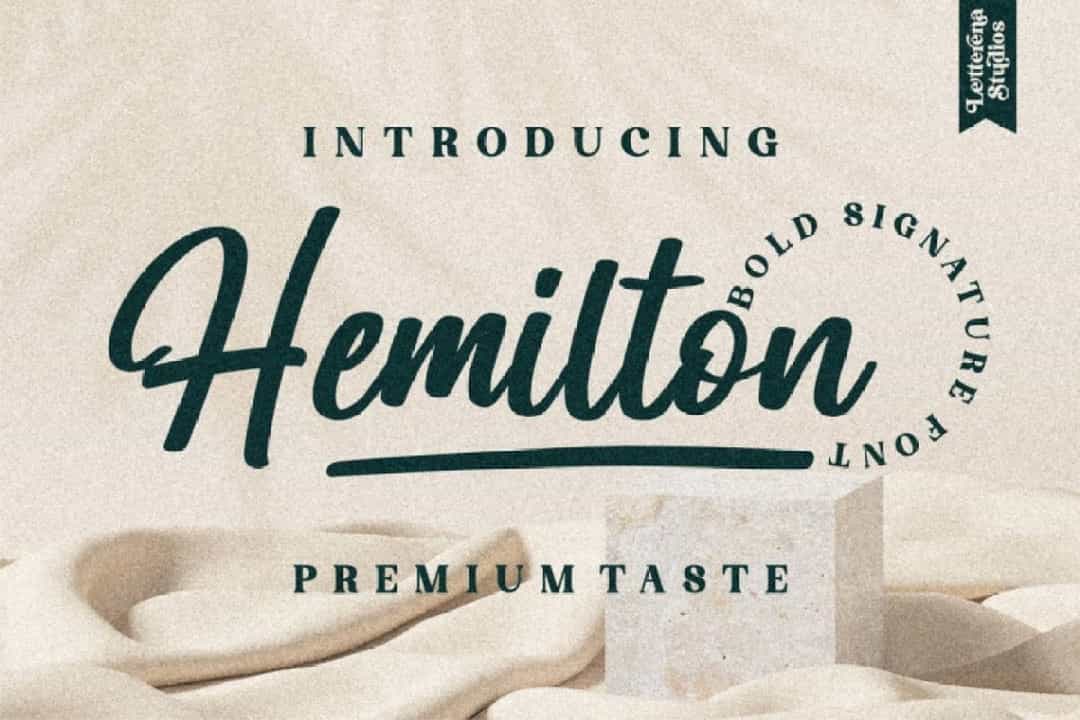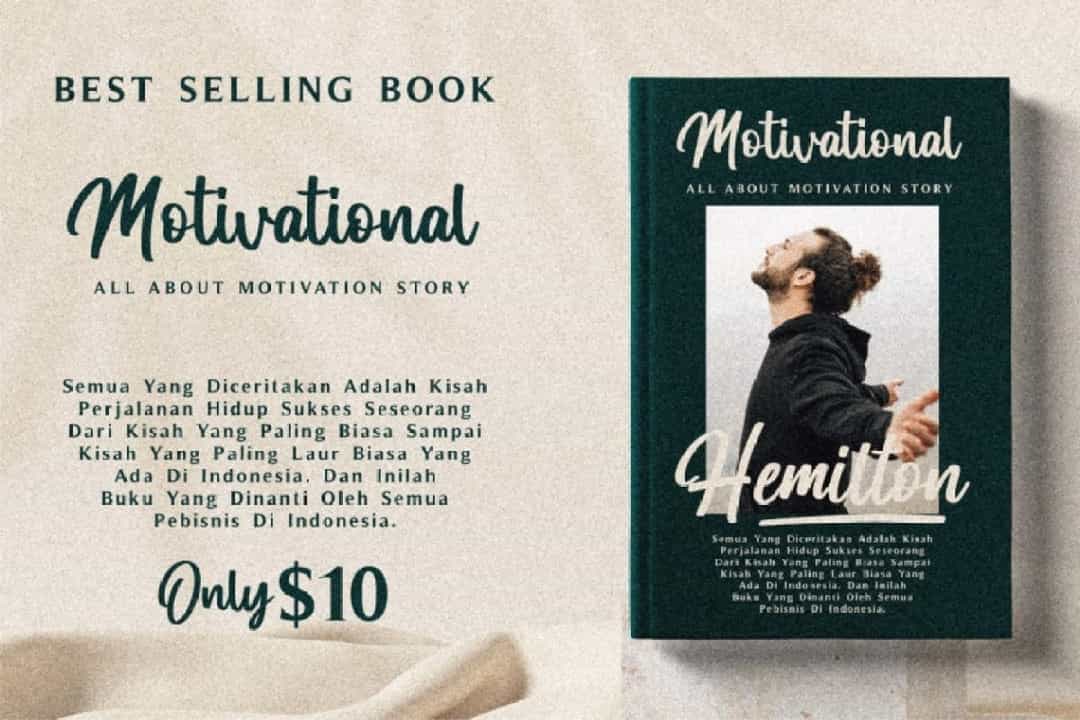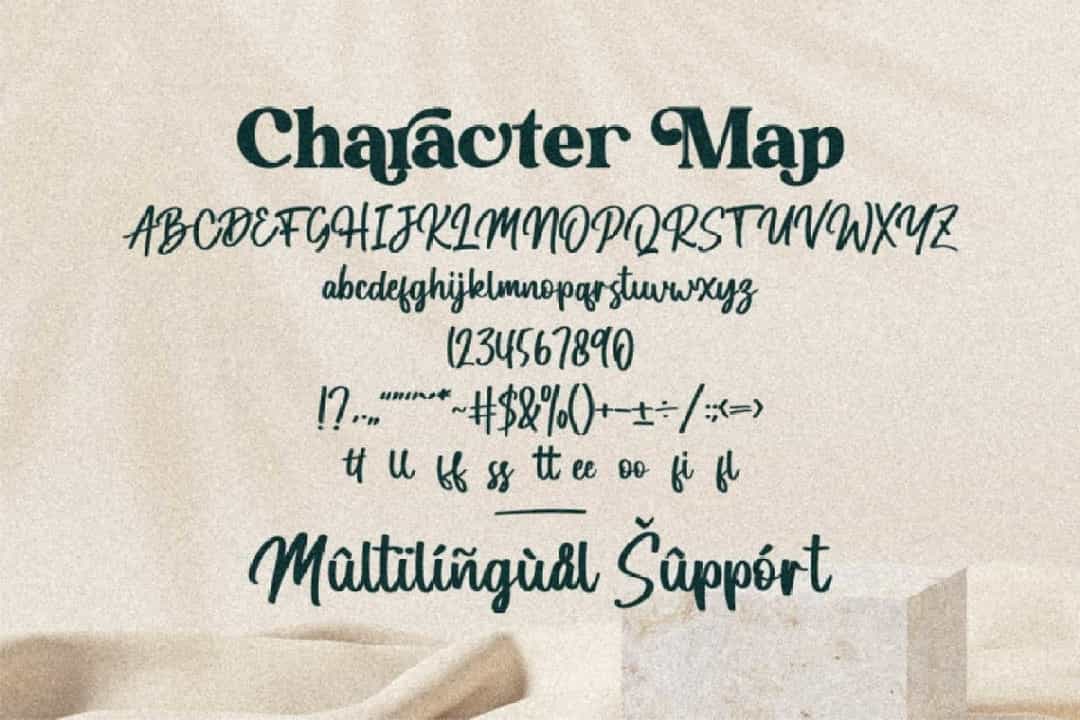
Hemilton is an elegant handwritten font suitable for logos, branding and homeware designs, packaging of products as well as products packaging in different forms such as mugs, posters, quotes bags for shopping, t-shirts cover for books name cards card invitations greeting cards labels photography watermark special occasions special projects and any other project which requires brushstrokes – this font is perfect for creating that signature taste!